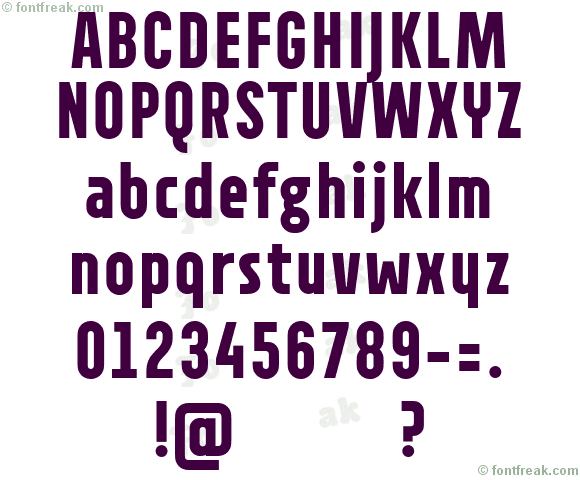
IJskelder Whiteboard
About IJskelder Whiteboard
IJskelder Whiteboard is a striking display font designed by Peter Van Lancker, embodying a modern and playful aesthetic that is perfect for various creative applications. As a sans-serif typeface, it features bold strokes and a contemporary feel that makes it ideal for projects requiring a strong visual impact. The font showcases a consistent stroke weight, providing clarity and legibility, while its slightly rounded edges add a friendly touch. The letterforms are spaciously designed, ensuring that they stand out in both print and digital formats.
This font is particularly well-suited for a range of use cases. Its playful nature makes it an excellent choice for wedding invitations, where a touch of whimsy can enhance the overall design. Additionally, IJskelder Whiteboard works wonderfully for movie posters, capturing attention with its bold presence. Restaurant menus can benefit from this font's readability, making it easier for customers to navigate offerings. Furthermore, it can elevate branding materials for small businesses, conveying a sense of friendliness and approachability that resonates with customers.
What sets the IJskelder Whiteboard font apart is its unique blend of modernity and approachability, making it an ideal choice for anyone aiming to create engaging and memorable designs. With the IJskelder Whiteboard font free download, you can easily elevate your next project and capture the attention of your audience.